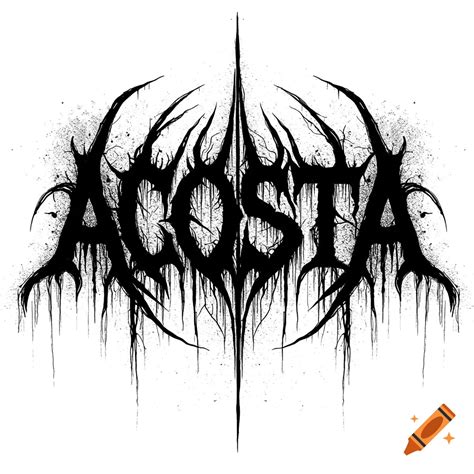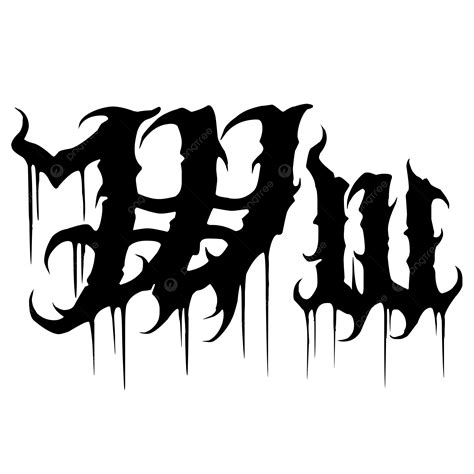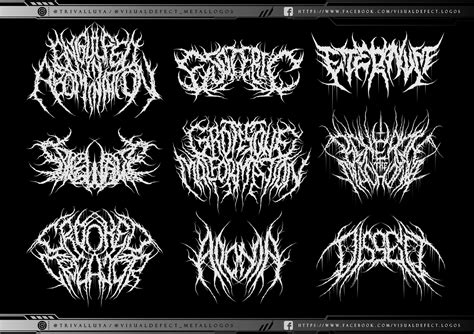
Death Metal Fonts are more than just typography; they are a visual representation of the raw, intense, and often dark themes that define the death metal genre. These fonts are designed to evoke a sense of aggression, mystery, and the macabre, making them a staple in the visual identity of death metal bands, album covers, and merchandise. Whether you're a fan of death metal or a designer looking to incorporate this edgy style into your projects, understanding the nuances of Death Metal Fonts can enhance your appreciation and application of this unique typographic style.
The Evolution of Death Metal Fonts
Death Metal Fonts have evolved significantly since the genre’s inception in the mid-1980s. Initially, death metal bands often used simple, bold fonts to convey their message. However, as the genre grew and diversified, so did the typography. Today, Death Metal Fonts come in a variety of styles, from the classic, brutal look to more intricate and ornate designs. This evolution reflects the genre’s own growth and the increasing sophistication of its visual aesthetics.
Characteristics of Death Metal Fonts
Death Metal Fonts are characterized by several key features that set them apart from other typographic styles. These include:
- Bold and Heavy Weight: Death Metal Fonts often feature thick, bold lines that give them a heavy, impactful look. This weight is essential for conveying the raw power and intensity of death metal music.
- Sharp Edges and Angles: The use of sharp, angular shapes adds to the aggressive and menacing feel of these fonts. This is often seen in the design of letters like ’M,’ ‘N,’ and ‘K,’ which have jagged edges.
- Distorted and Asymmetrical Forms: Many Death Metal Fonts incorporate distorted and asymmetrical elements, giving them a chaotic and unpredictable appearance. This reflects the genre’s often chaotic and intense nature.
- Gothic and Medieval Influences: Some Death Metal Fonts draw inspiration from Gothic and medieval typography, featuring ornate details and a sense of antiquity. This adds a layer of mystery and darkness to the design.
Popular Death Metal Fonts
There are numerous Death Metal Fonts available, each with its unique style and characteristics. Some of the most popular include:
| Font Name | Description |
|---|---|
| Black Metal | A classic Death Metal Font with thick, bold lines and sharp edges, often used for its brutal and aggressive appearance. |
| Death Metal | This font features a more ornate design with Gothic influences, making it a popular choice for album covers and band logos. |
| Bloodlust | A highly distorted and asymmetrical font that conveys a sense of chaos and intensity, perfect for death metal band names. |
| Gothic Death | This font combines Gothic and medieval elements with a modern, heavyweight design, creating a unique and striking look. |
Using Death Metal Fonts in Design
Incorporating Death Metal Fonts into your design projects can add a powerful and edgy element. Here are some tips for effectively using these fonts:
- Choose the Right Font: Select a font that aligns with the overall aesthetic and message of your project. For example, a more ornate font might be suitable for a medieval-themed design, while a bold, heavyweight font could work well for a modern, aggressive look.
- Consider Readability: While Death Metal Fonts are designed to be impactful, it’s important to ensure they remain readable. Avoid using overly distorted or complex fonts for large bodies of text.
- Pair with Complementary Elements: Combine Death Metal Fonts with other design elements that enhance their impact. This could include dark color schemes, gritty textures, and macabre imagery.
- Use Sparingly: Death Metal Fonts are best used sparingly to maintain their impact. Overuse can dilute their effect and make your design feel cluttered.
💡 Note: When using Death Metal Fonts, always consider the context and audience of your design. These fonts are powerful tools that can evoke strong emotions, so use them thoughtfully to achieve the desired effect.
Creating Your Own Death Metal Font
If you’re feeling creative, you can design your own Death Metal Font. Here are the steps to get you started:
- Conceptualize Your Design: Begin by sketching out your ideas. Think about the key characteristics you want your font to have, such as bold lines, sharp edges, or ornate details.
- Choose Your Tools: Select a font design software that suits your needs. Popular choices include Adobe Illustrator, FontLab, and Glyphs.
- Create the Basic Shapes: Start by designing the basic shapes of your letters. Focus on creating a consistent style that aligns with your concept.
- Refine and Detail: Add the finer details to your letters, such as serifs, distortions, and any additional elements that enhance the Death Metal aesthetic.
- Test and Adjust: Test your font in various sizes and contexts to ensure it remains readable and impactful. Make any necessary adjustments based on your testing.